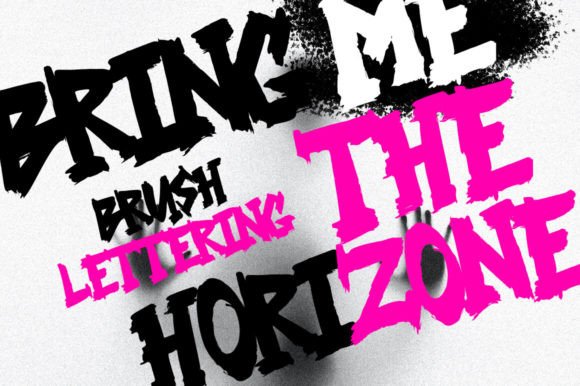
Bring Me the Horizon Font: A Handwritten Brush Script Font for Creative Expression
Bring Me the Horizon Font is a unique and creative handwritten brush script font that has gained popularity among designers and artists. This font is inspired by the British rock band Bring Me the Horizon and is designed to resemble a marker board. In this article, we’ll explore the features and benefits of using Bring Me the Horizon Font, and how it can elevate your creative projects.
What is Bring Me the Horizon Font?
Bring Me the Horizon Font is a handwritten brush script font that looks and feels like it was written on a marker board. It’s a digital font that mimics the casual, laid-back style of handwritten text on a marker board. The font is perfect for creating eye-catching and expressive designs that convey a sense of creativity and playfulness.
Key Features of Bring Me the Horizon Font
- Handwritten brush script font: Bring Me the Horizon Font is a handwritten brush script font that has a unique and personal touch.
- Marker board style: The font is designed to resemble text written on a marker board, giving it a casual and laid-back feel.
- Perfect for creative projects: Bring Me the Horizon Font is ideal for designers, artists, and crafty people who want to add a personal touch to their work.
Uses of Bring Me the Horizon Font
Bring Me the Horizon Font is a versatile font that can be used for a variety of creative projects. Here are some ideas to get you started:
Popular Uses for Bring Me the Horizon Font
- Greeting cards: Create personalized greeting cards for special occasions like birthdays, weddings, and holidays.
- Invitations: Design eye-catching invitations for parties, events, and gatherings.
- Motivational quotes: Use Bring Me the Horizon Font to create inspiring and motivational quotes for social media, posters, and flyers.
- Logos and branding: Create a unique and memorable logo for your business or brand using Bring Me the Horizon Font.
Benefits of Using Bring Me the Horizon Font
Using Bring Me the Horizon Font can bring several benefits to your creative projects. Here are some of the advantages of using this font:
Why Choose Bring Me the Horizon Font?
- Unique and creative: Bring Me the Horizon Font is a one-of-a-kind font that can add a personal touch to your designs.
- Easily readable: The font is clear and easy to read, making it perfect for body text and headings.
- Customizable: You can adjust the font size, color, and style to fit your design needs.
- Time-saving: Using a pre-designed font like Bring Me the Horizon Font can save you time and effort in creating your own custom font.
Bring Me the Horizon Font is a unique and creative handwritten brush script font that’s perfect for designers, artists, and crafty people. With its marker board style and casual feel, this font is ideal for creating eye-catching and expressive designs. Whether you’re creating greeting cards, invitations, or motivational quotes, Bring Me the Horizon Font can help you add a personal touch to your work. So why not give it a try and see how it can elevate your creative projects?